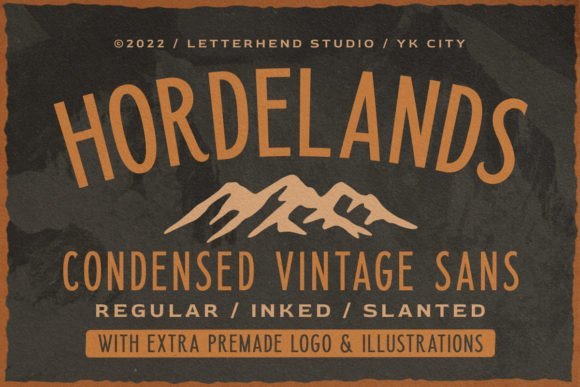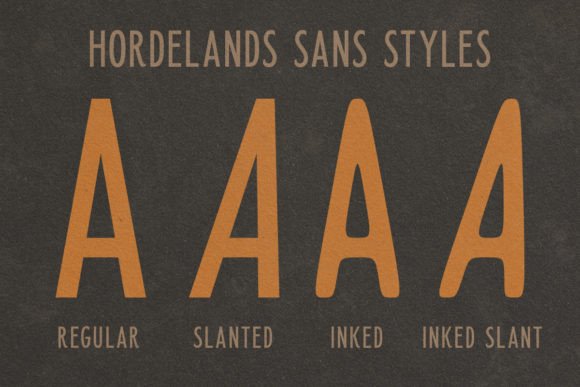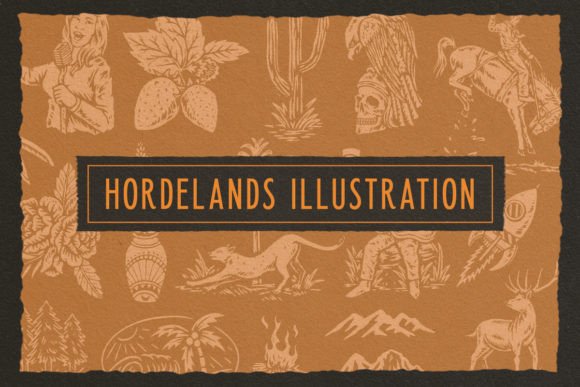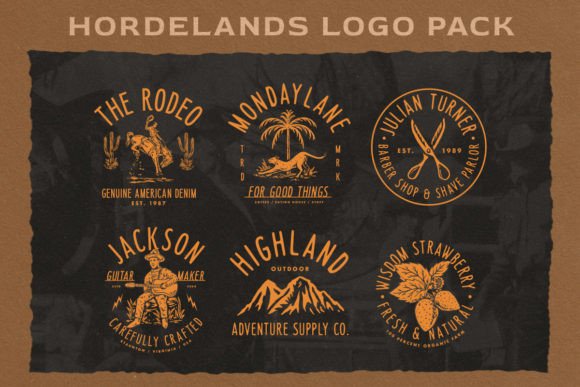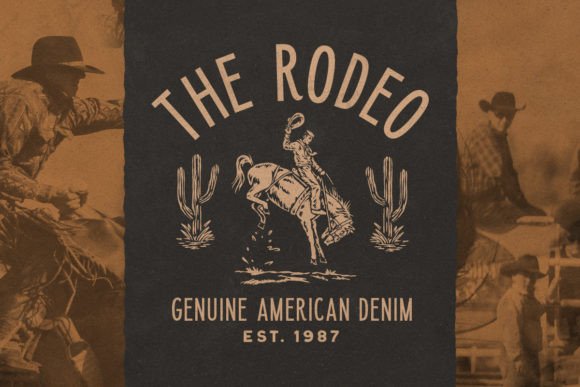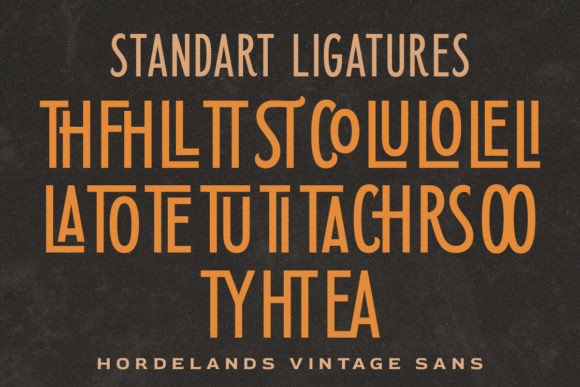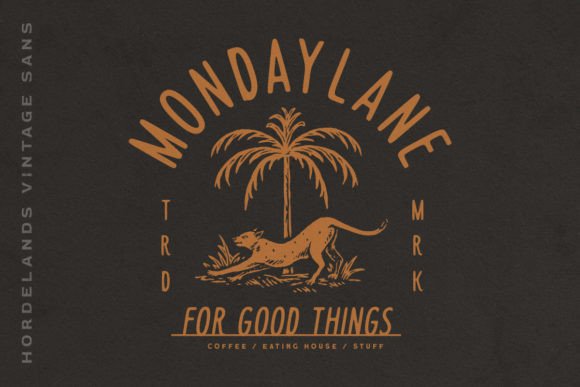
Unleashing Creativity with Horderlands Font
For designers seeking that perfect combination of vintage charm and modern flair, Horderlands Font is the answer. This display condensed typeface is designed to add a touch of sophistication to any project, from logos to graphics and beyond. With its few logo packs ready to use, Horderlands Font makes it easy to bring your ideas to life.
Whether you’re a seasoned pro or just starting out, Horderlands Font is a valuable addition to any designer’s toolkit. Its versatility and ease of use make it perfect for a wide range of creative projects, ensuring your designs stand out from the crowd.
Horderlands Font Key Features
- Unique Characteristics: The font features a distressed, hand-drawn look with a mix of modern and vintage elements, making it perfect for creative projects and designs that require a unique aesthetic
Horderlands Font Review
Overall, I’m quite pleased with the Horderlands Font, but like any font, it has its strengths and weaknesses. Here’s my honest take.
- The unique, hand-drawn feel of Horderlands adds a touch of whimsy to any project.
- The font is highly versatile and can be used for a wide range of projects, from logos to posters to body text.
- The bold weights of the font are particularly striking and can help to create a strong visual impact.
- Some of the letterforms can be difficult to read at smaller sizes, particularly the ‘a’ and ‘e’.
- The font may not be the best choice for projects that require a high level of precision or accuracy, such as technical documentation.
- Some users may find the font’s irregularities distracting or unprofessional.
While Horderlands Font has its limitations, I think it’s a great choice for projects that require a touch of personality and whimsy. With a bit of careful planning and consideration, I think this font can add a lot of visual interest to your designs.
The Horderlands Font is ideal for creating eye-catching graphics, logos, and presentations. Some common use cases include:
- Social media graphics and posts
- Business presentations and reports
Remember to adjust the font size and color to ensure readability and legibility.